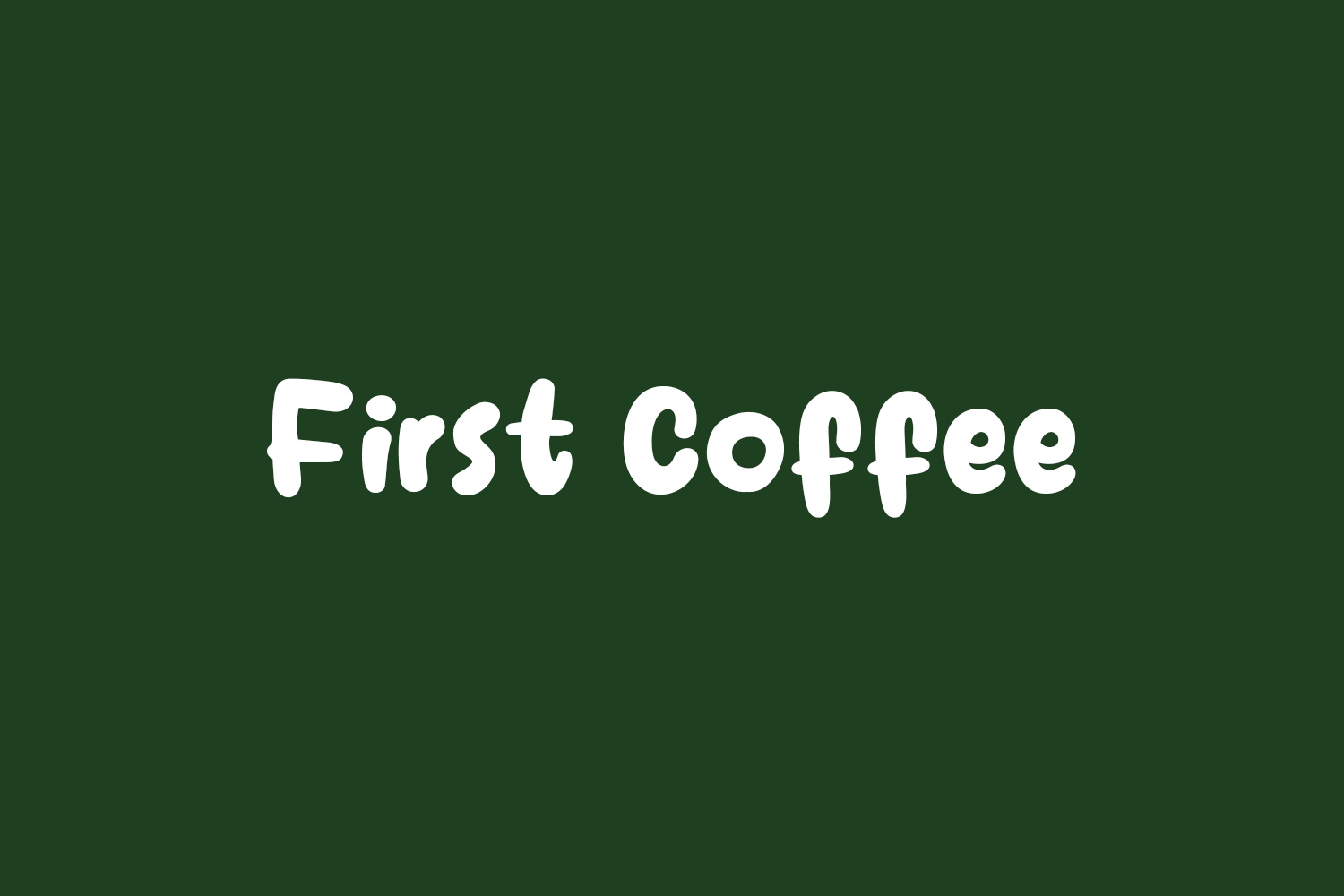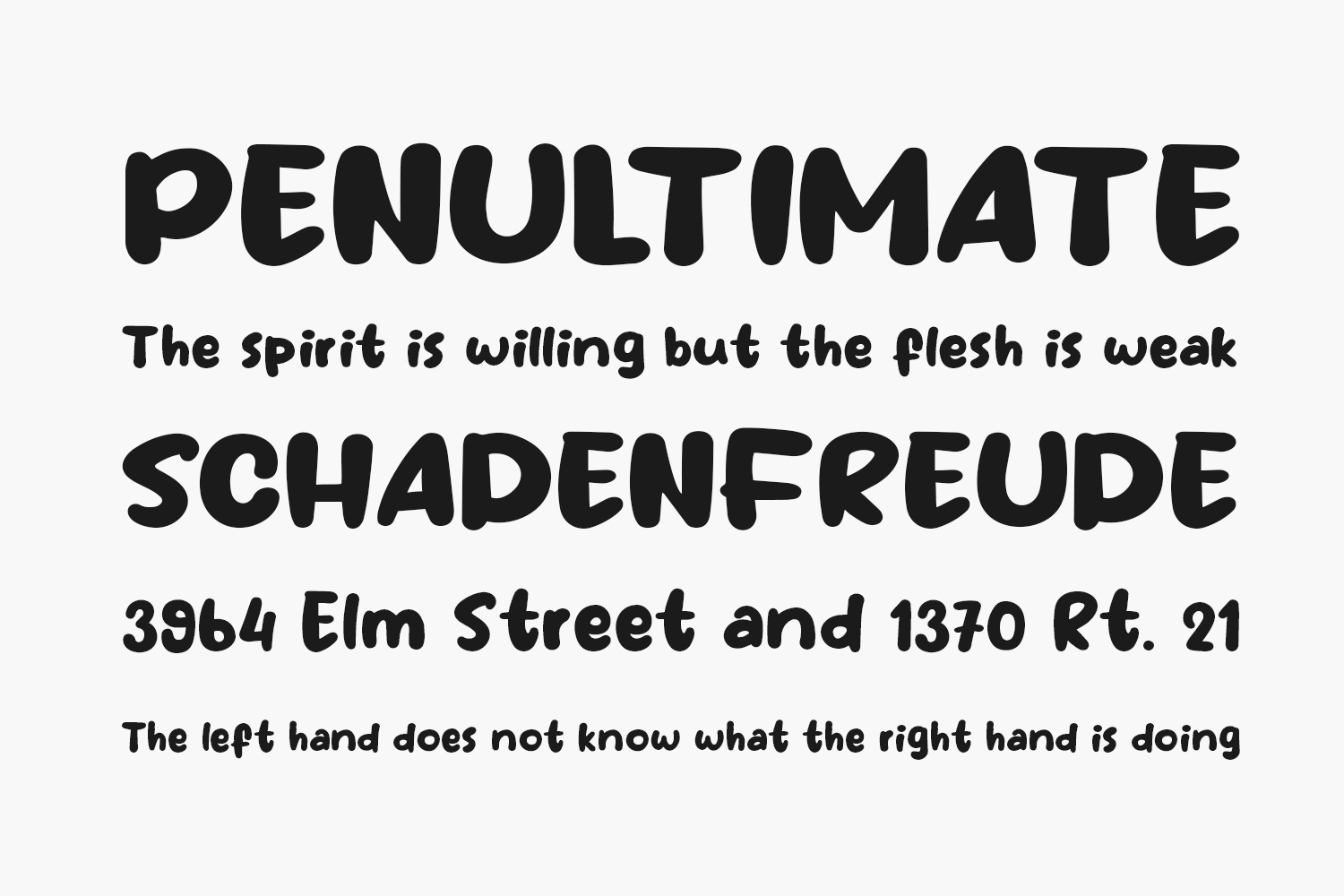
First Coffee Free Font is a modern and fancy display font perfect for posters, logos, magazines, book covers, banners, and many more! Get this cute display font, and use it to create lovely designs. First Coffee Free Font was designed by Khurasan and is free for personal or commercial use only.